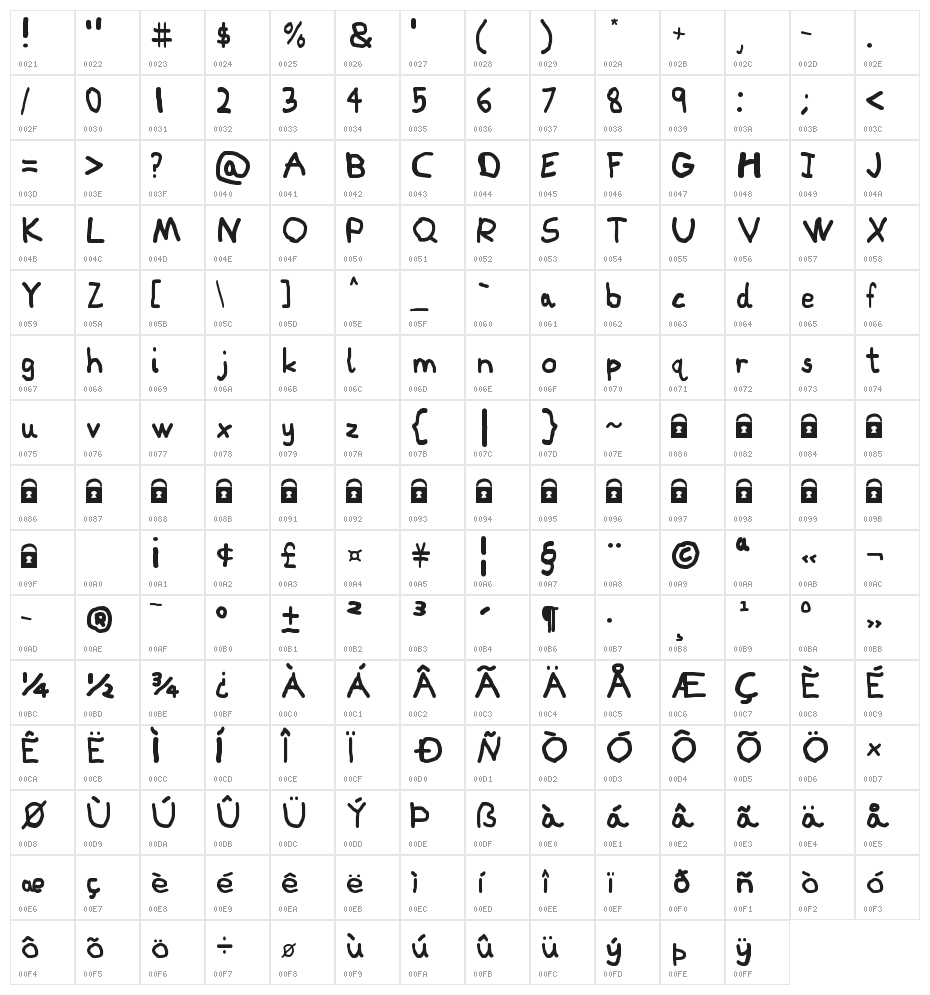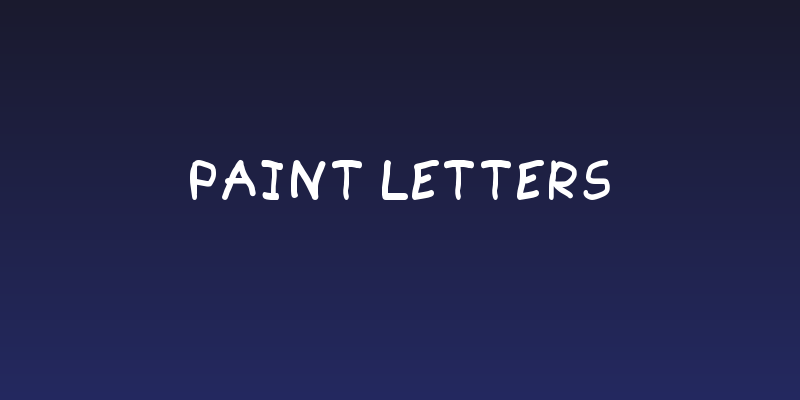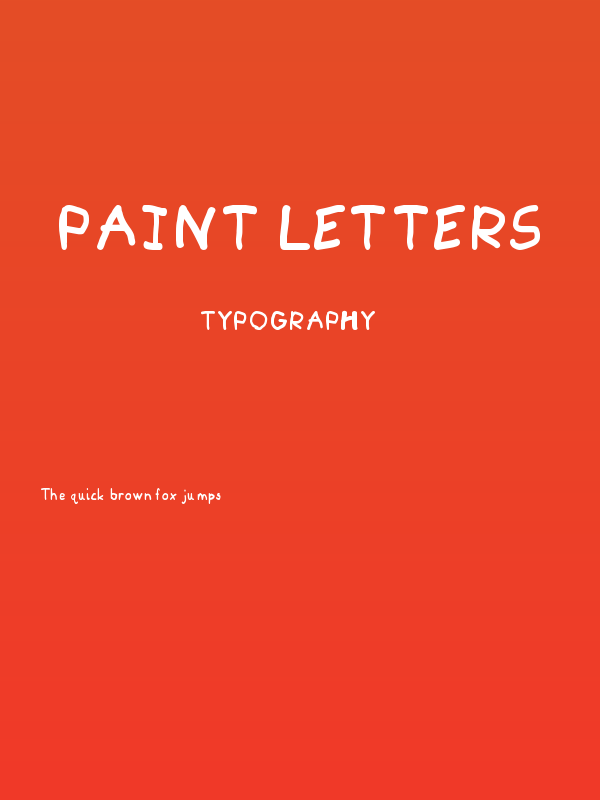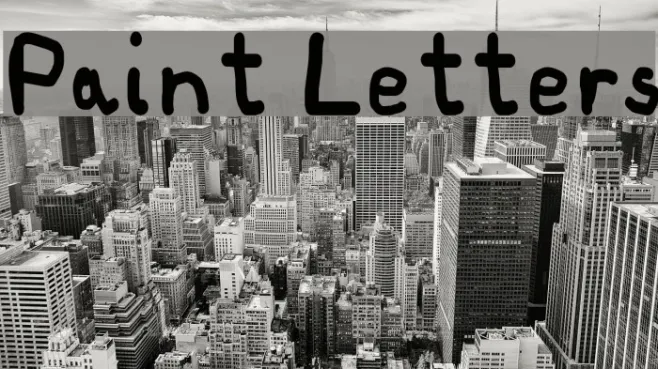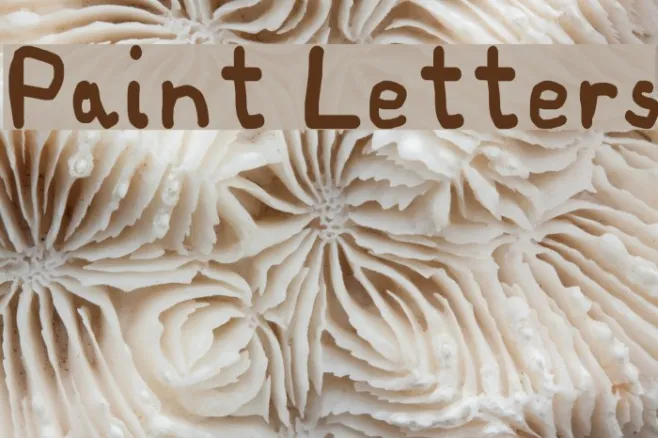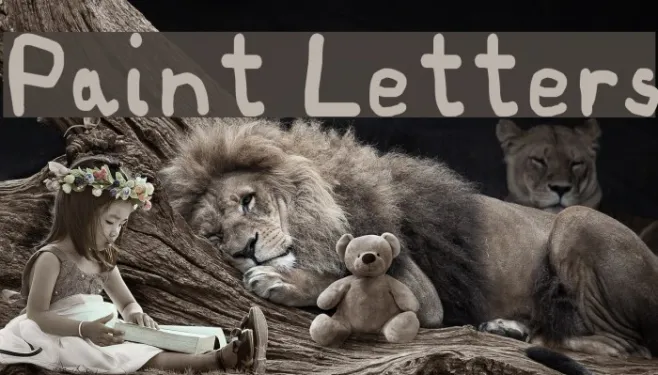
Paint Letters Font
Paint Letters Description
This font exudes a playful and casual vibe, reminiscent of hand-painted letters. The strokes are uneven and slightly wavy, giving it a whimsical and informal appearance. The characters are bold and have a consistent thickness, which makes them stand out. The uppercase and lowercase letters maintain a uniform style, with rounded edges and a slightly irregular baseline that adds to the hand-drawn effect. The numerals and special characters follow the same playful design, ensuring a cohesive look across all text elements. This font is perfect for projects that require a fun and approachable aesthetic.
| Proposed Projects | Ideal for children's books, playful branding, casual invitations, and creative posters. |